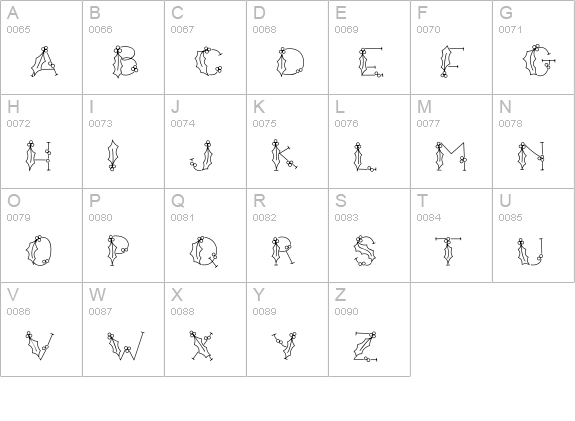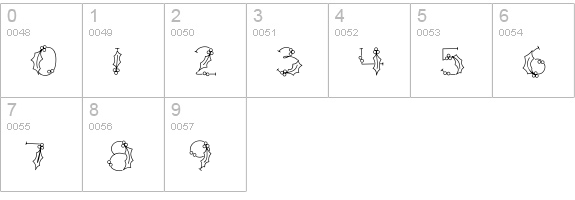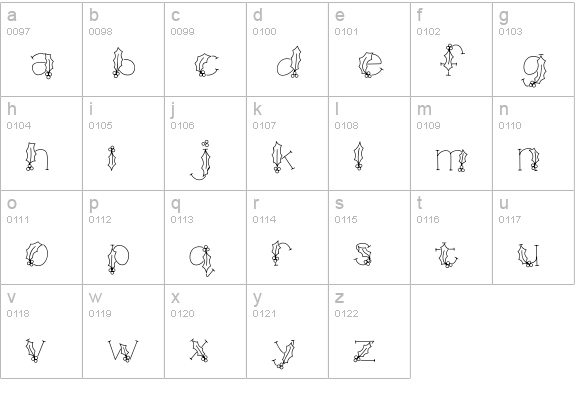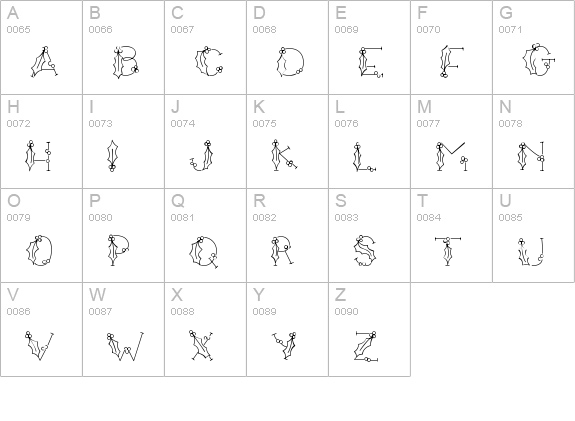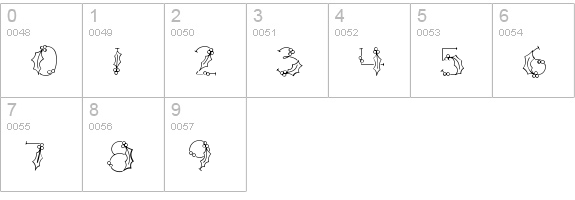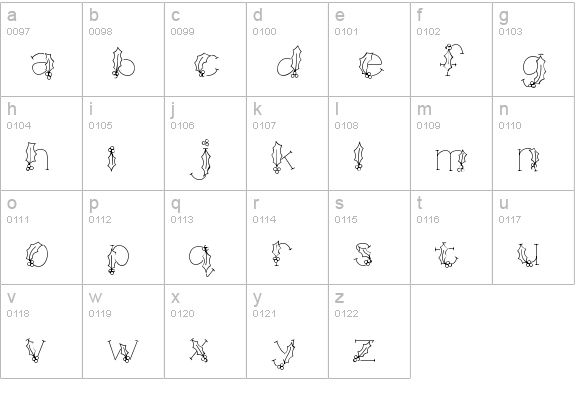
Introducing CK Holly & Berries font, a charming and whimsical typeface perfect for adding a touch of holiday spirit to your designs. This playful font features delicate holly leaves and berries intertwined with each letter, creating a festive and joyful look. CK Holly & Berries font is free to download at FontsMarket.com, making it easy for you to add a festive flair to your holiday projects without breaking the bank. Whether you're designing greeting cards, party invitations, or seasonal graphics, this font is sure to bring a touch of merriment to your creations. Embrace the holiday season with CK Holly & Berries font and spread the cheer with every letter you type.